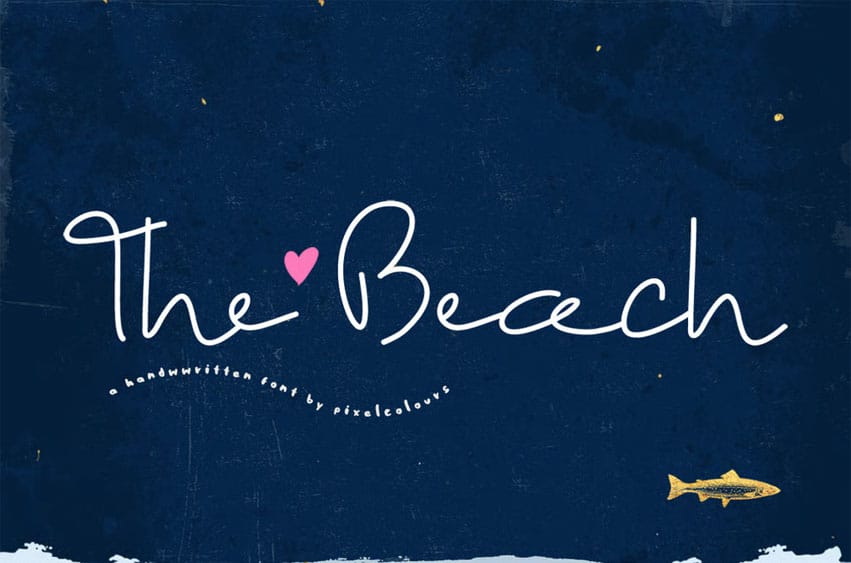
The Beach Font is a monoline font with a girly, freestyle.
This font is well-suited for a variety of contexts, such as print design, promotional materials, or magazine layouts.